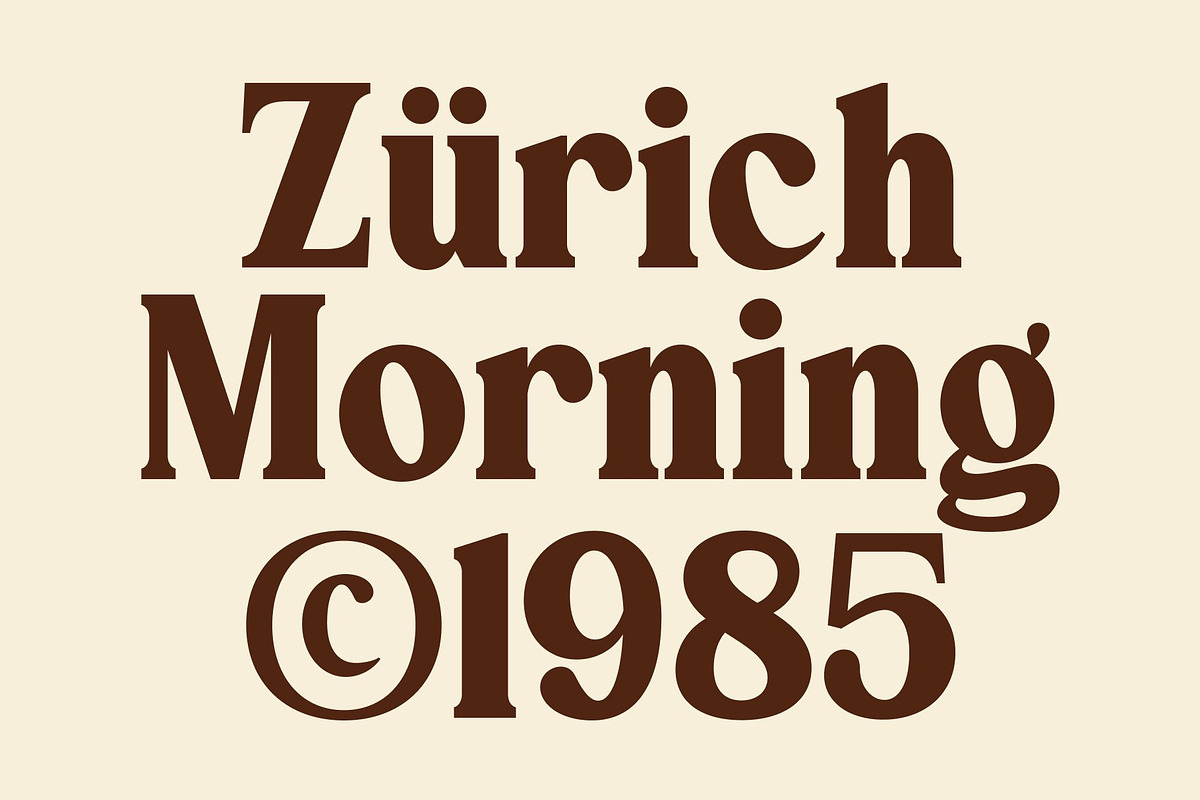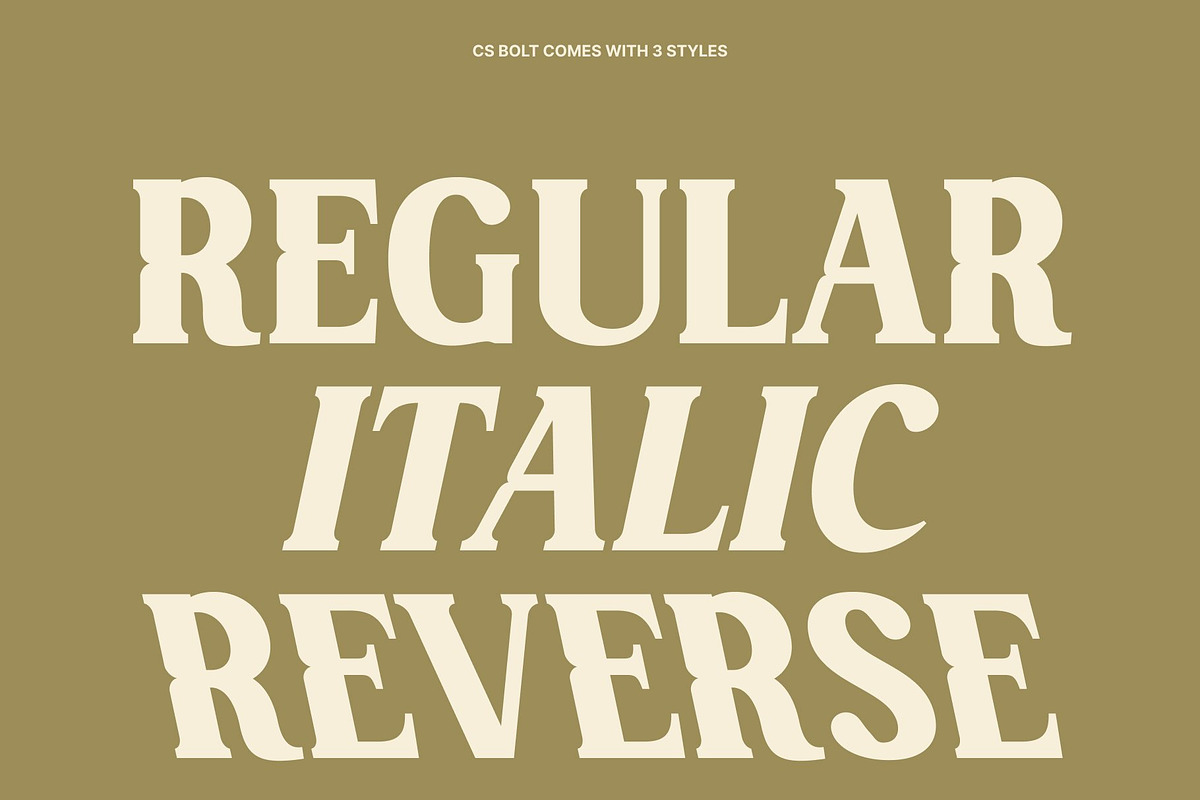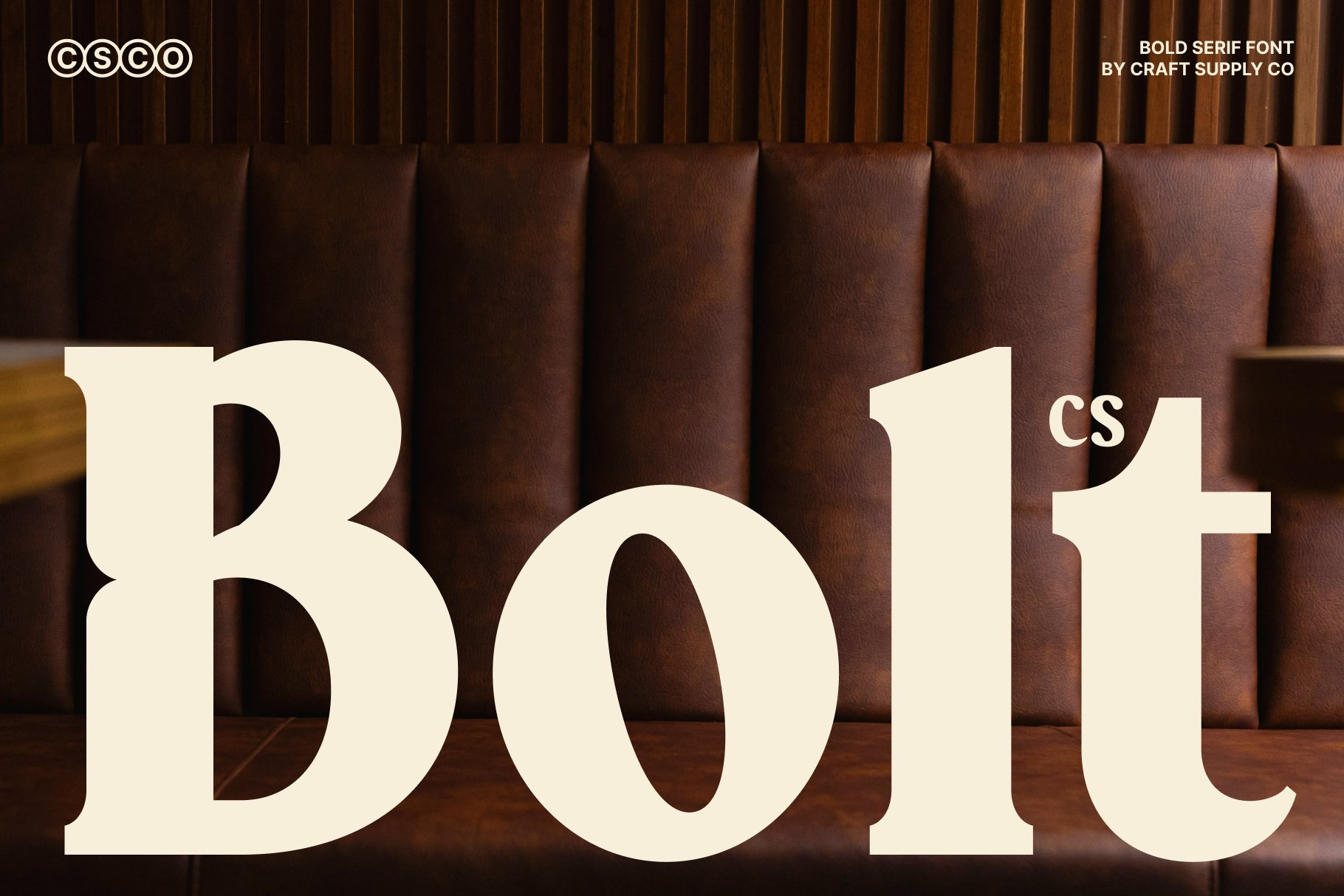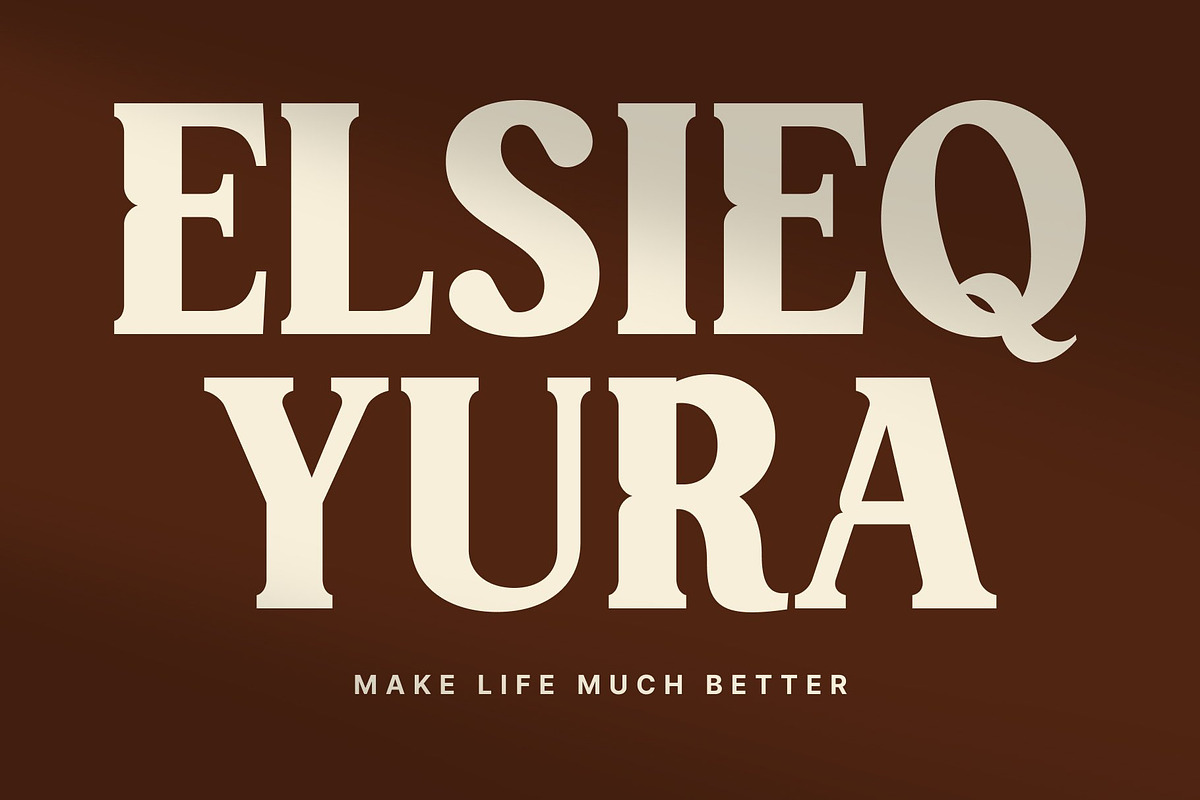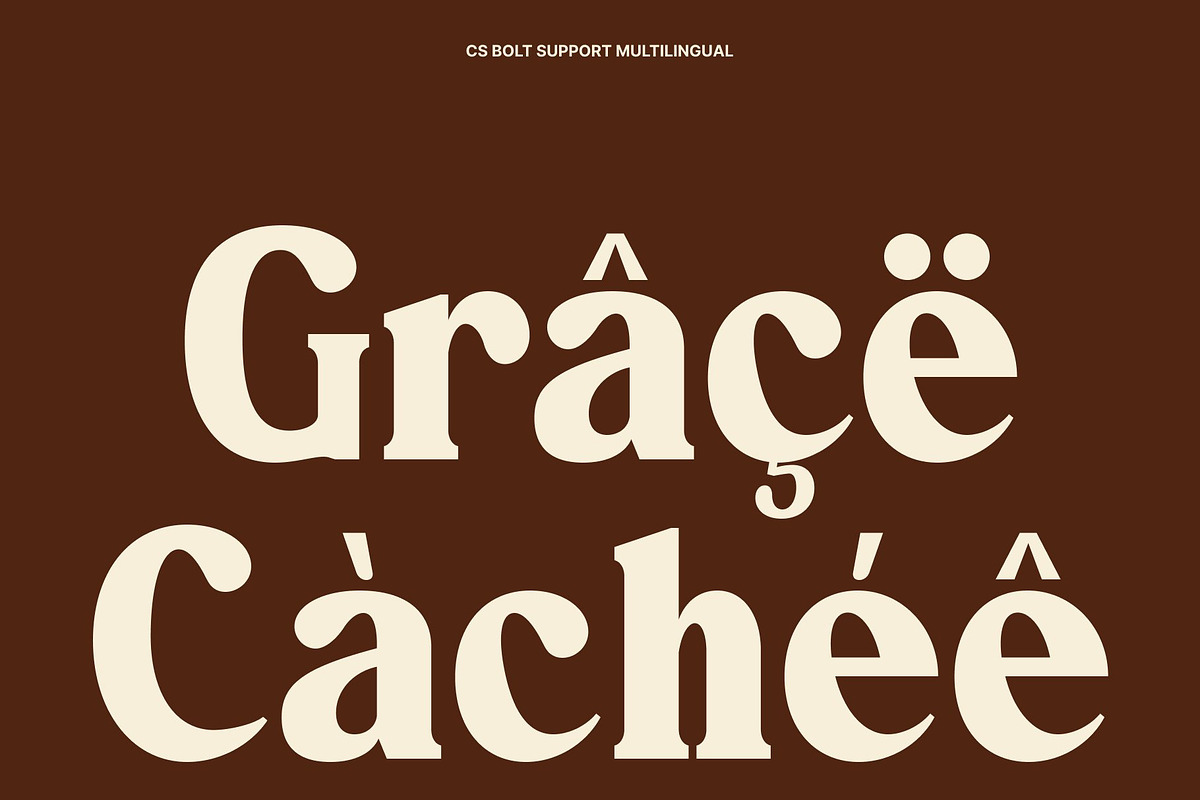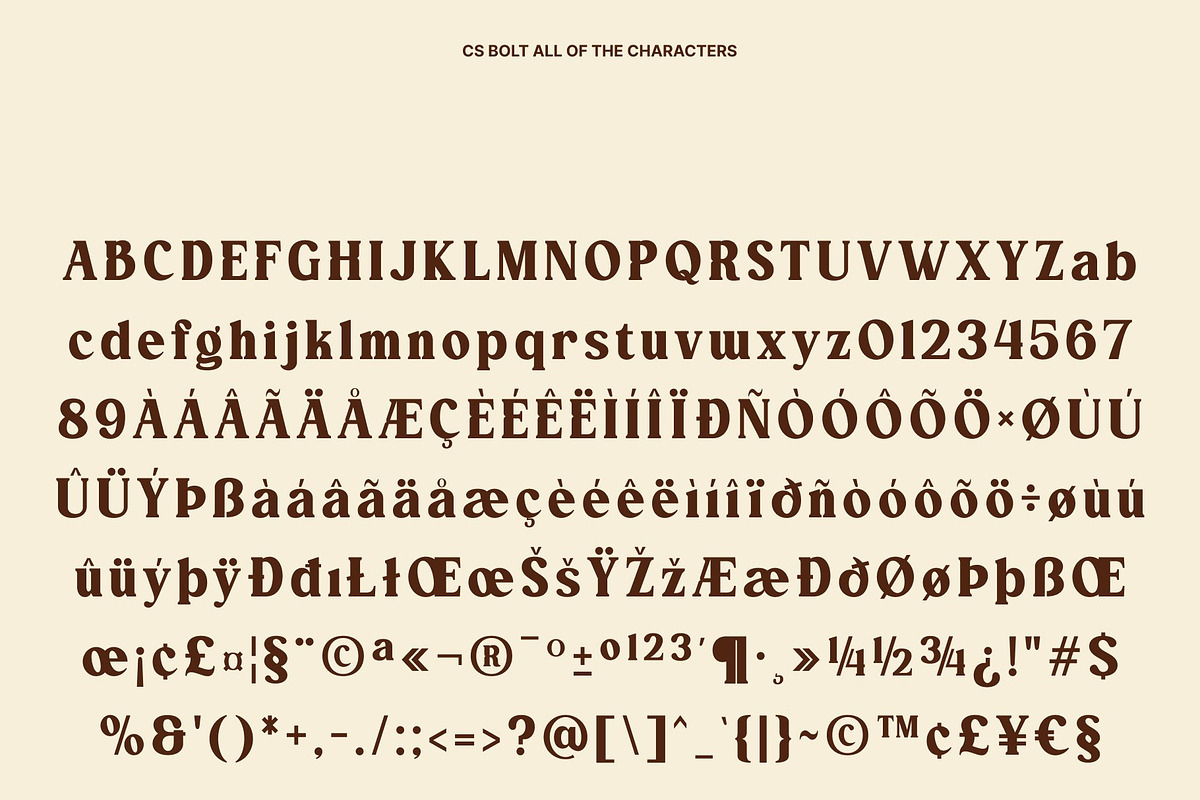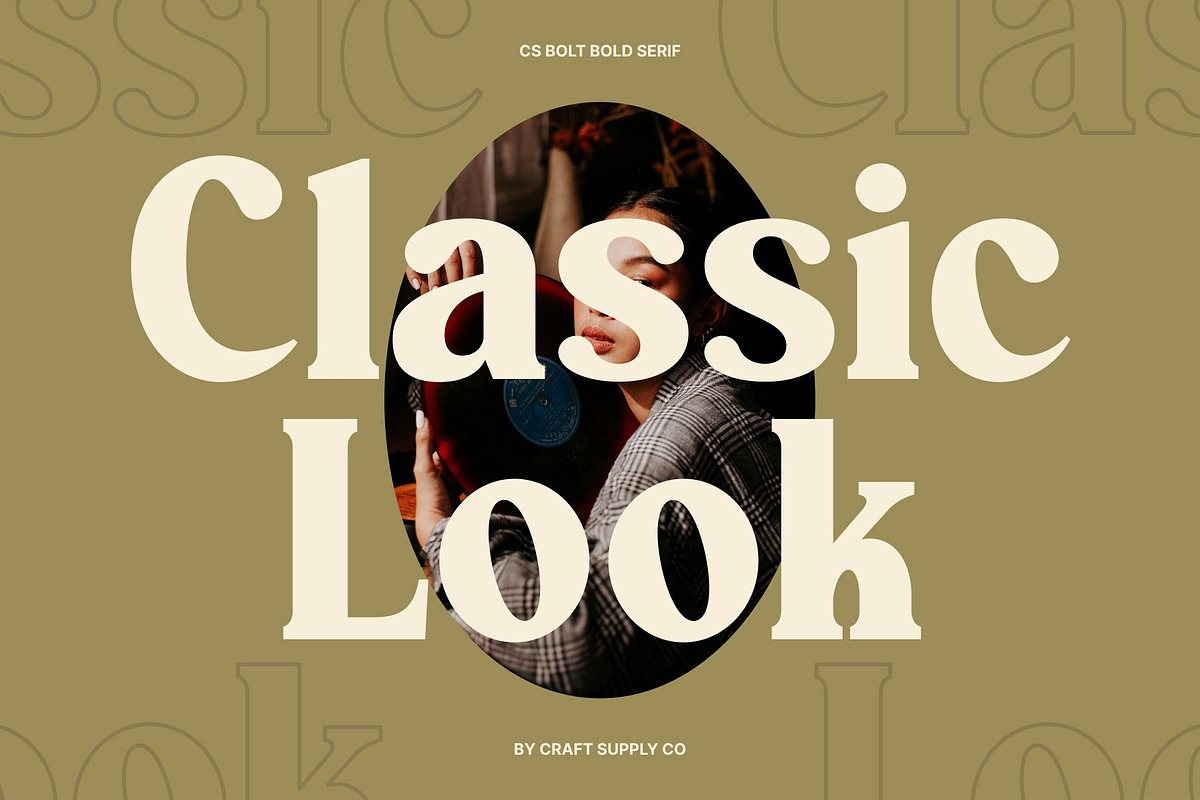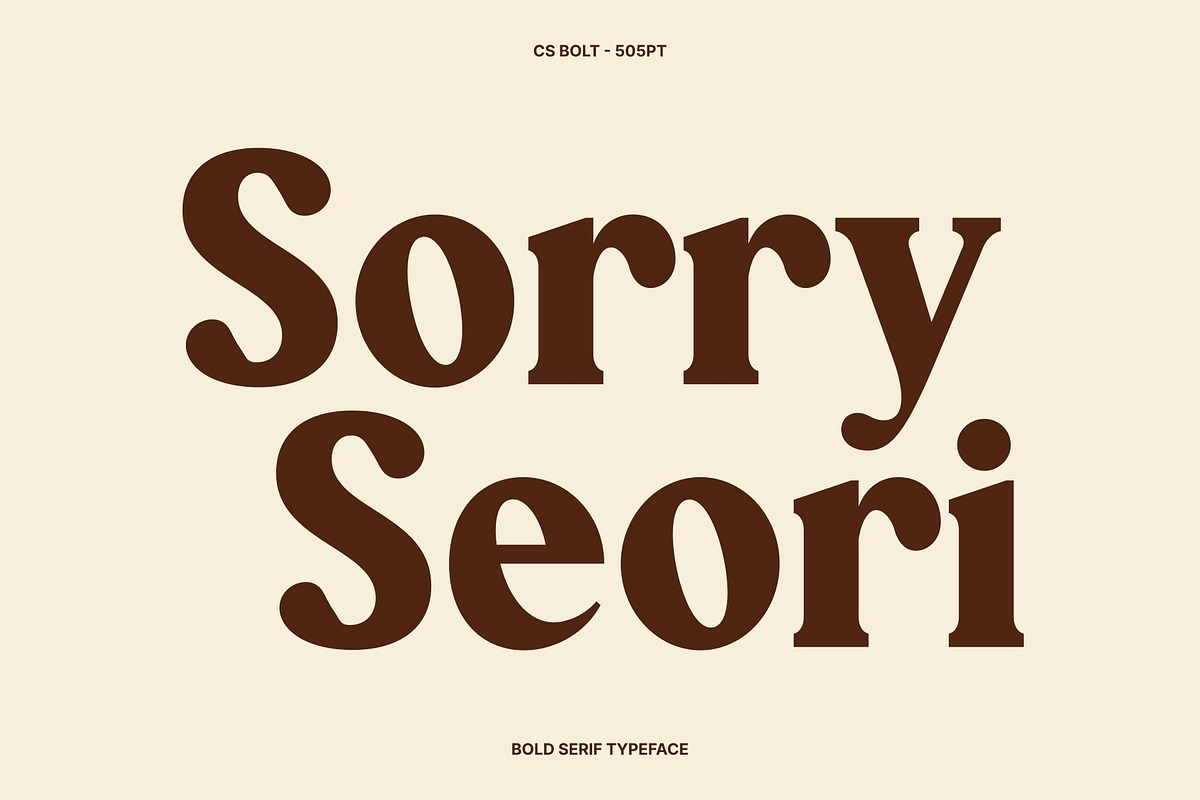
CS Bolt – Bold Serif Font
CS Bolt – Bold Serif with Confident Modern Strength
Bold Serif with Powerful Presence This is a bold serif font built to command attention through strong weight and confident structure. Its solid letterforms create an immediate visual impact, delivering a sense of authority and stability. Designed to stand out, this font brings a powerful presence to any composition while remaining visually balanced and controlled.
Strong Forms with Playful Softness What makes this font distinctive is its unique balance between strength and softness. While the bold strokes communicate confidence and dominance, subtle curves and rounded details introduce a playful and approachable character. This thoughtful combination prevents the font from feeling rigid, allowing it to feel strong, expressive, and friendly at the same time.
Modern Character with Expressive Energy This font carries a modern design language that feels fresh and energetic. Its bold construction works perfectly in contemporary layouts, creating typography that feels assertive without overwhelming the design. The playful nuances add personality, making the font memorable and versatile across creative applications.
Perfect for Headlines and Impactful Branding Ideal for headlines, posters, and impactful branding, this font excels in designs that need to grab attention instantly. Whether used for bold branding identities, eye-catching posters, or statement typography, delivers a confident, modern, and powerful look with a unique balance of strength and softness.
- CS Bolt Regular
- CS Bolt Italic
- CS Bolt Reverse Italic